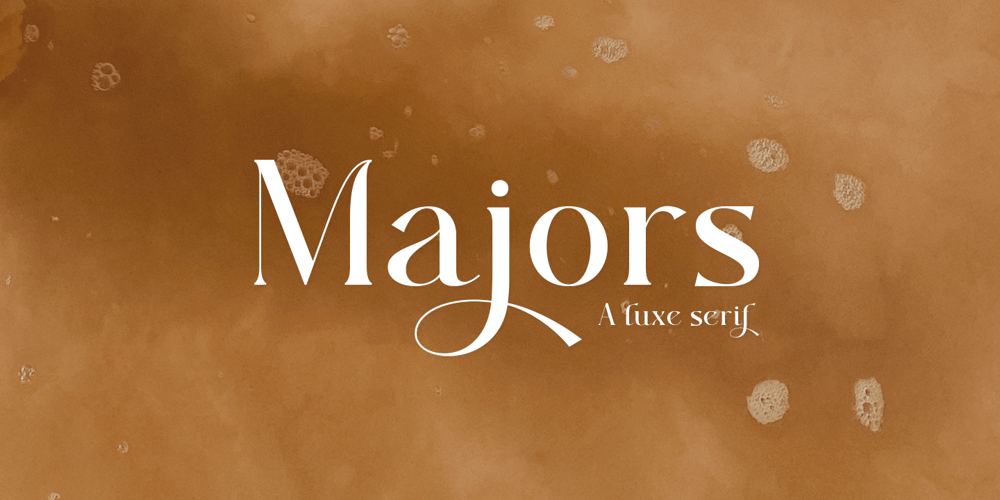
Majors Font Family was designed by Ambia and published by Areatype. Majors contains 1 styles and family package options. Majors is a very versatile font. perfect for magazine images, to wedding invitations, to branding, poster design, and more.Files include: Numerals & Punctuation Stylistic Alternates & Ligatures PUA Encoded Characters Thanks so much for looking, I really hope you enjoy it and please don’t hesitate to drop me a message if you have any issues or queries 🙂